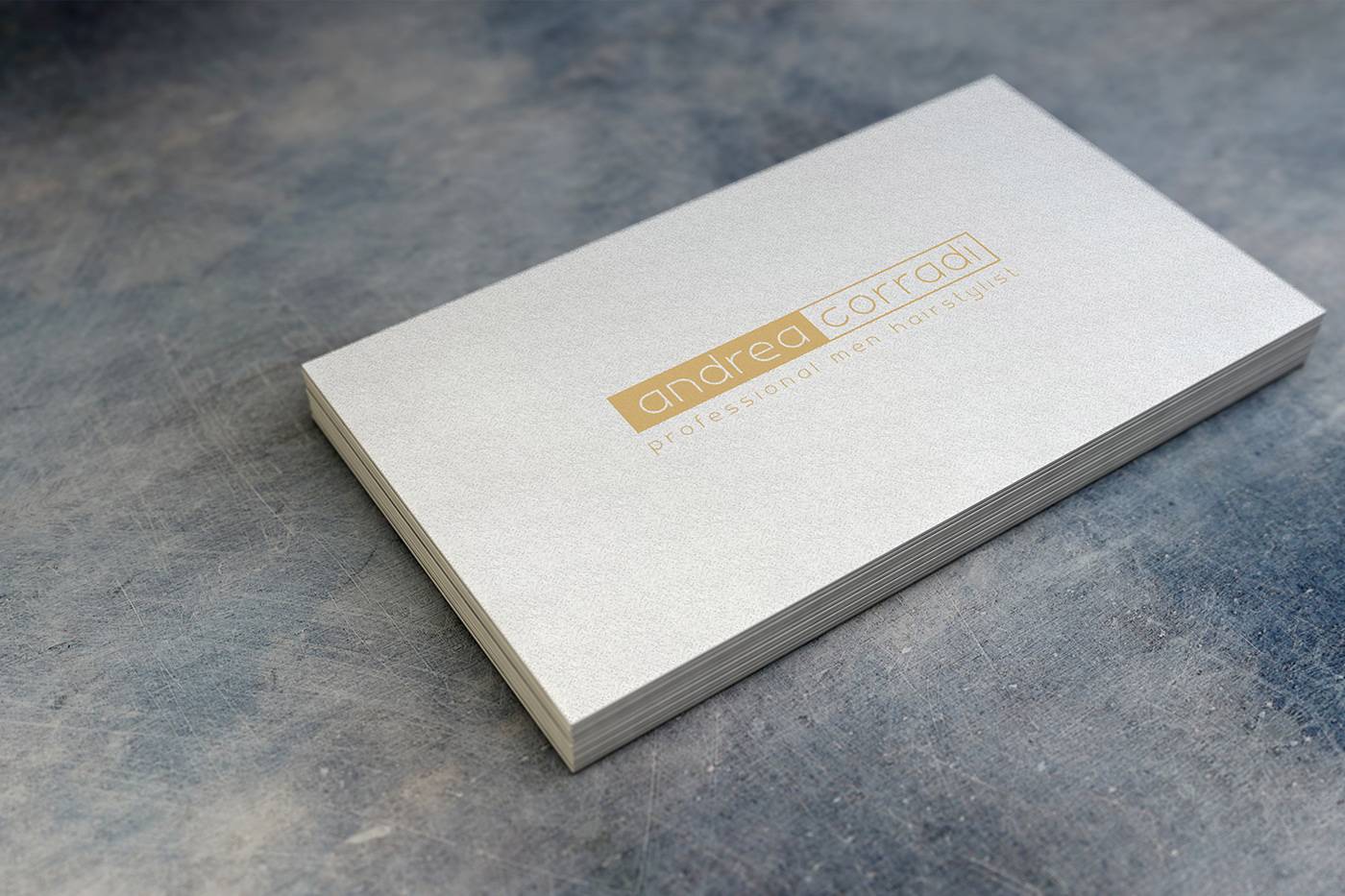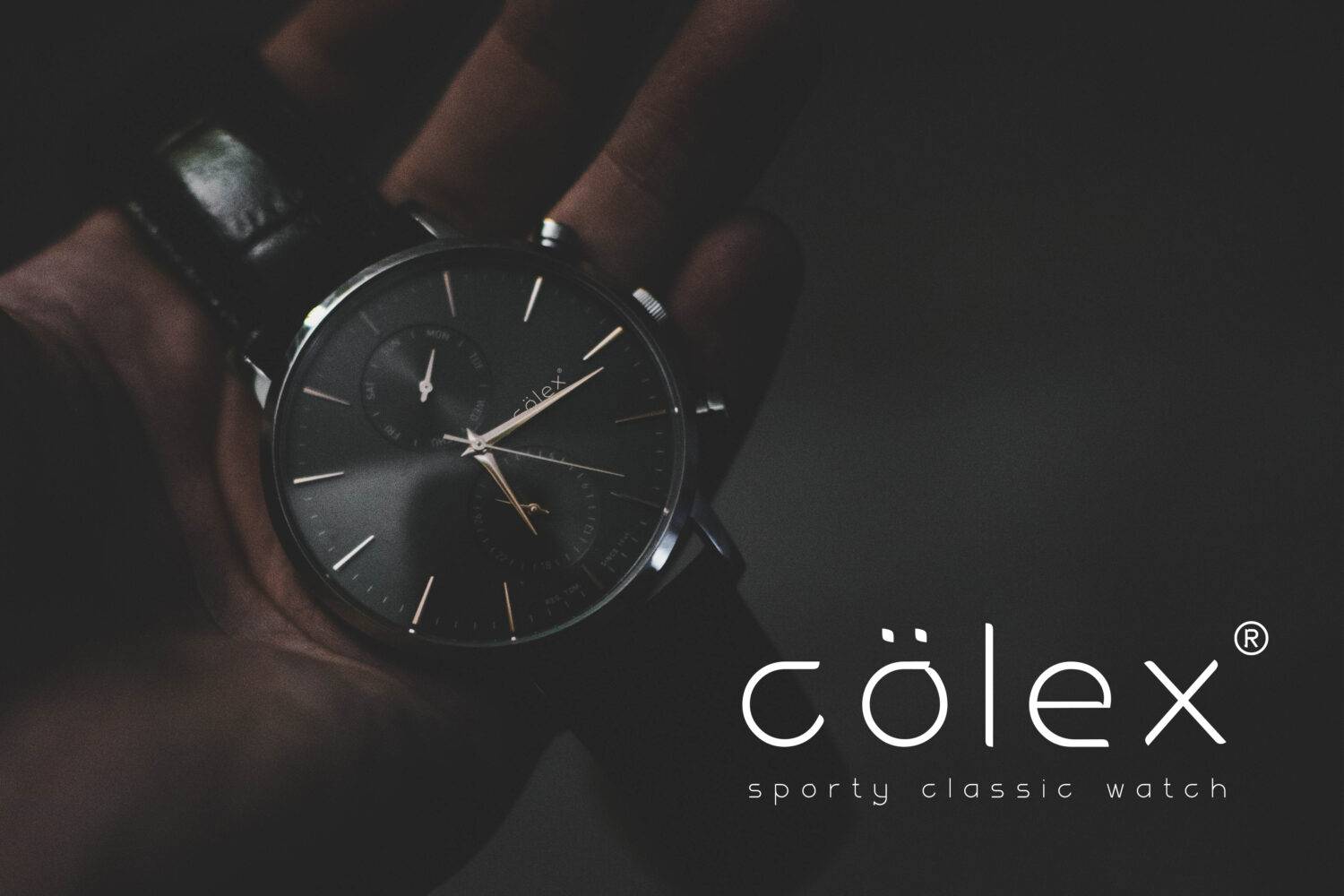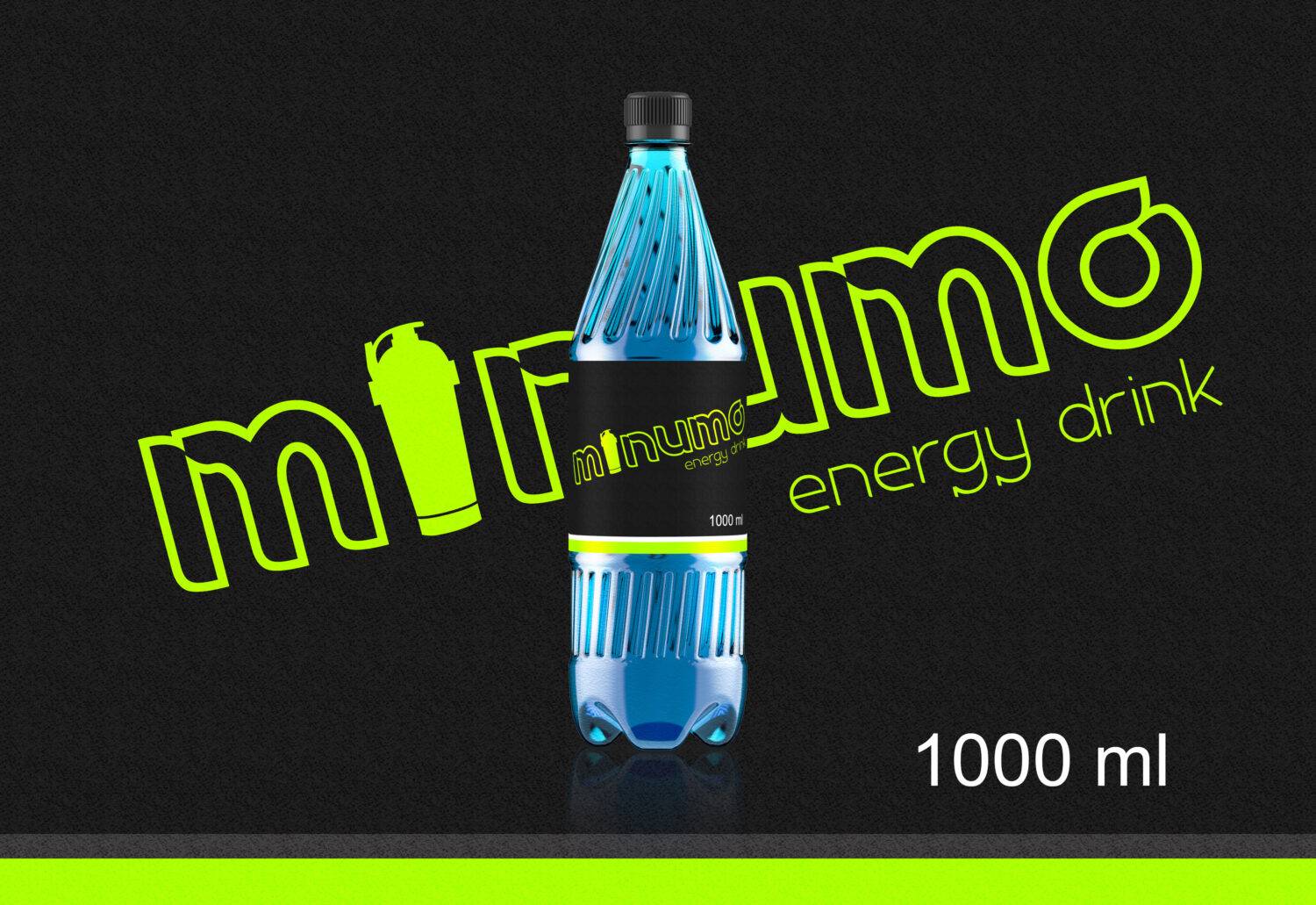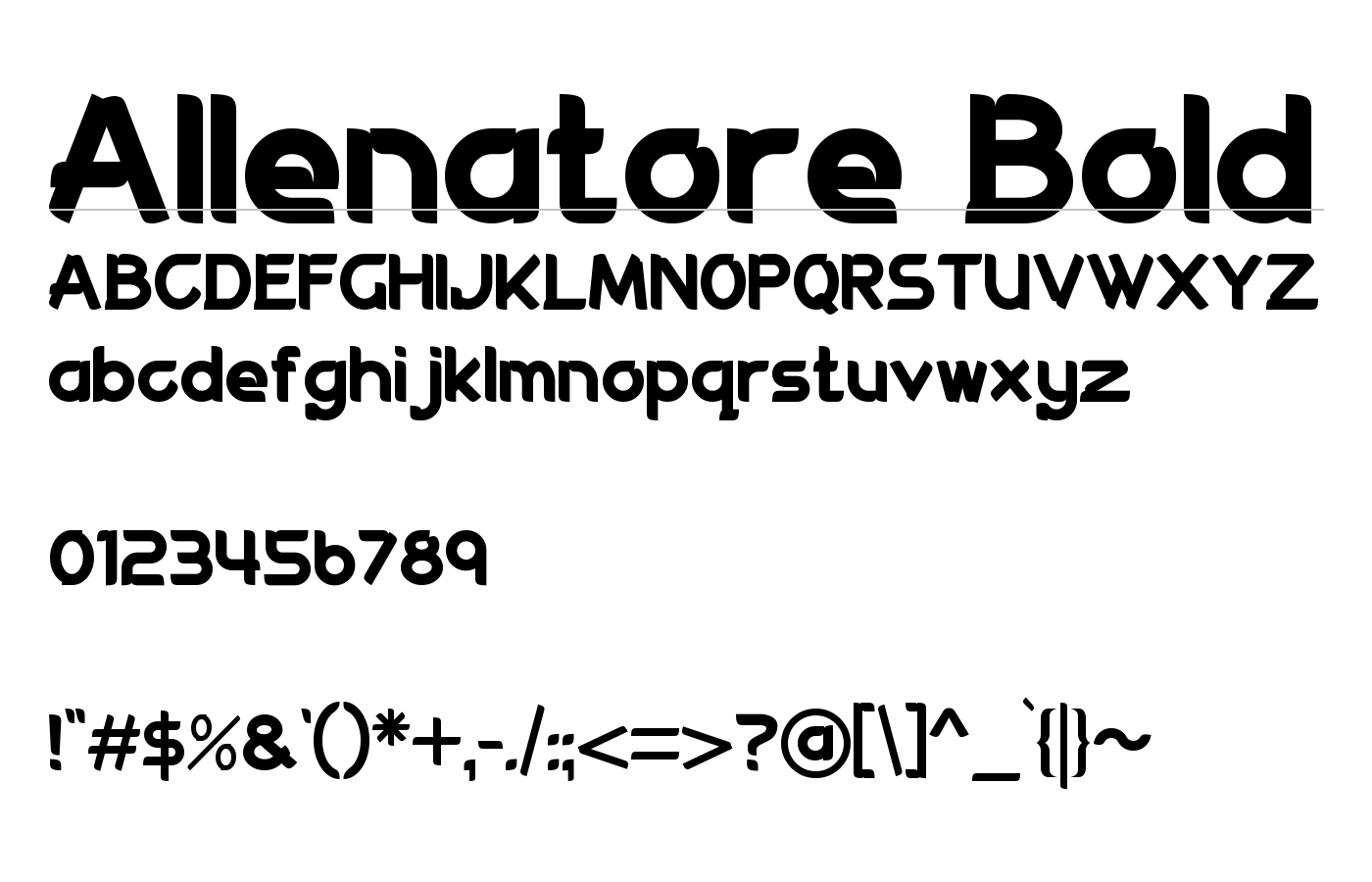
Allenatore Bold is a unique sans serif font with a bold weight and quirky, playful shapes that give it a friendly and approachable feel. Its distinctive letterforms, featuring sharp angles combined with smooth curves and slightly condensed spacing, make it ideal for eye-catching headlines, branding, and creative projects seeking a modern yet informal style. This font works well in designs that want to stand out with personality and warmth.
Allenatore Font
About Allenatore Font
| Font family | Allenatore Font |
| Designer | Abo Daniel 2018 |